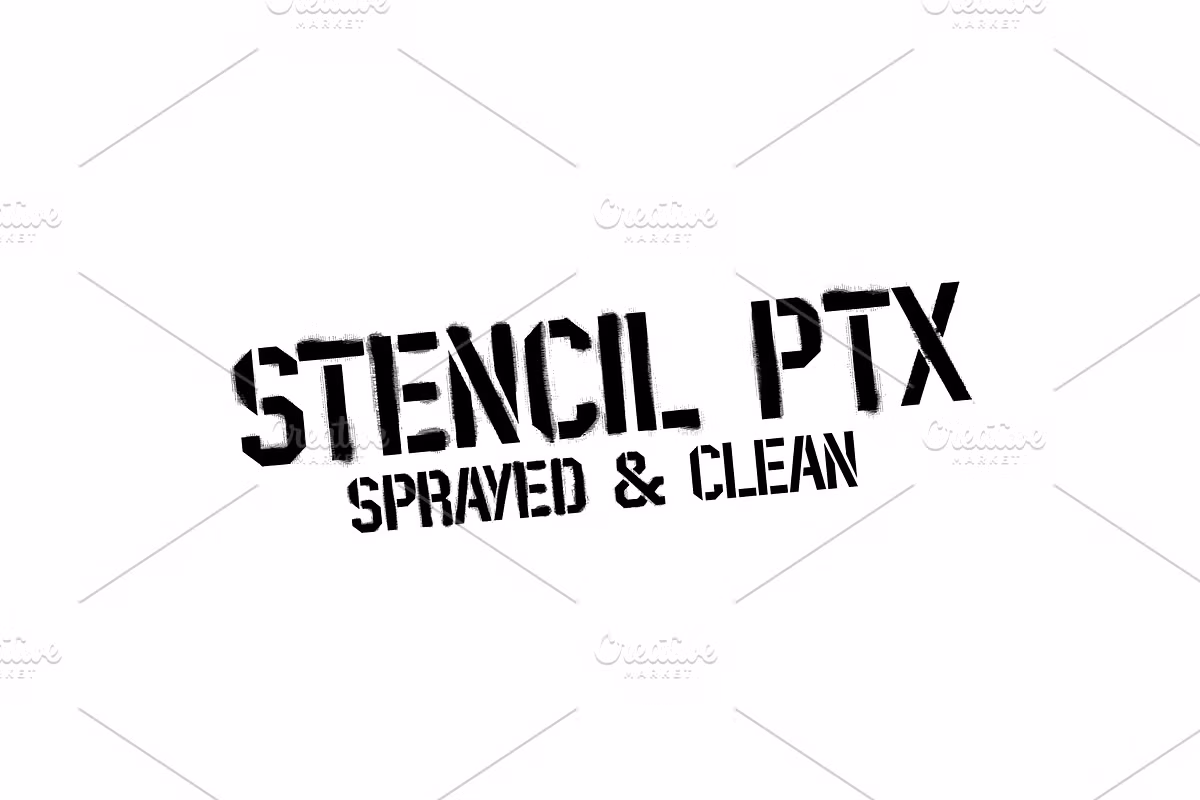
Stencil PTx Font Family Free Download is a strong, industrial-style typeface collection based on traditional military and utility stencils. With its precise cuts, bold weight options, and utilitarian appeal, this font family is perfect for signage, branding, streetwear, packaging, poster design, and anything that needs a rugged, tactical edge.
Offering multiple styles and weights, Stencil PTx Font Family Free Download gives designers flexibility while maintaining its distinctive, authoritative look. It's great for projects that demand a bold visual impact with a gritty, structured aesthetic.